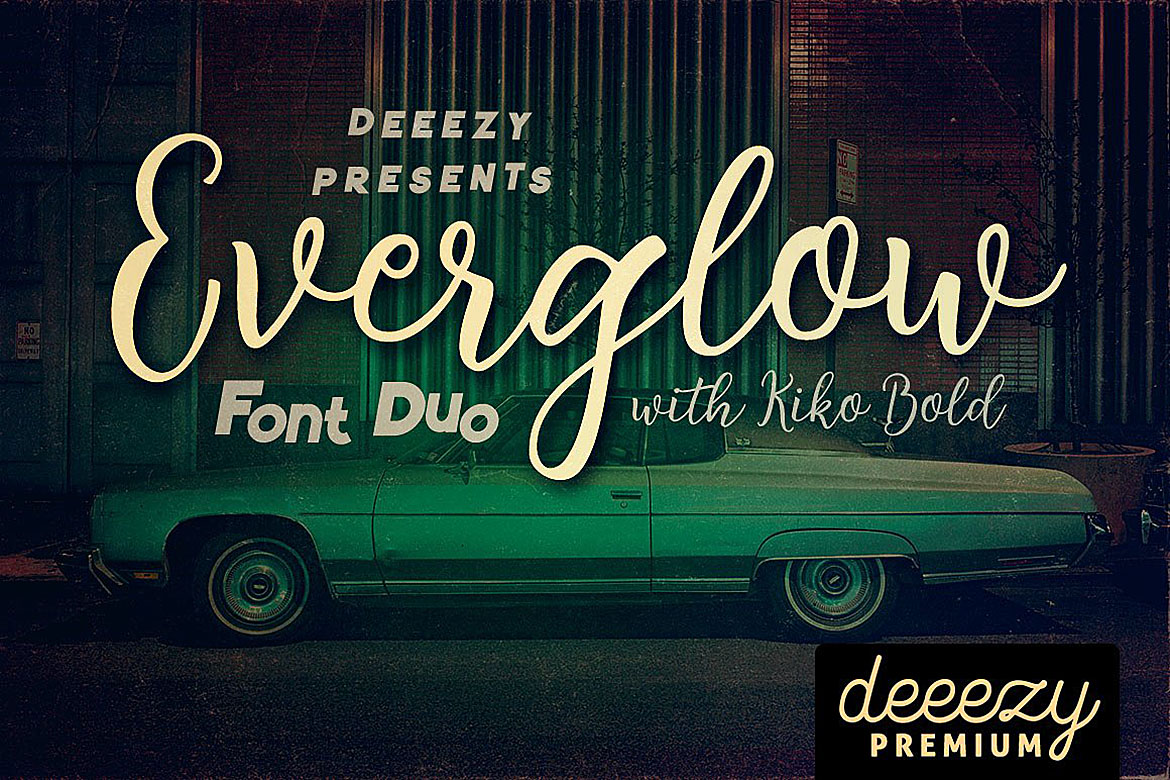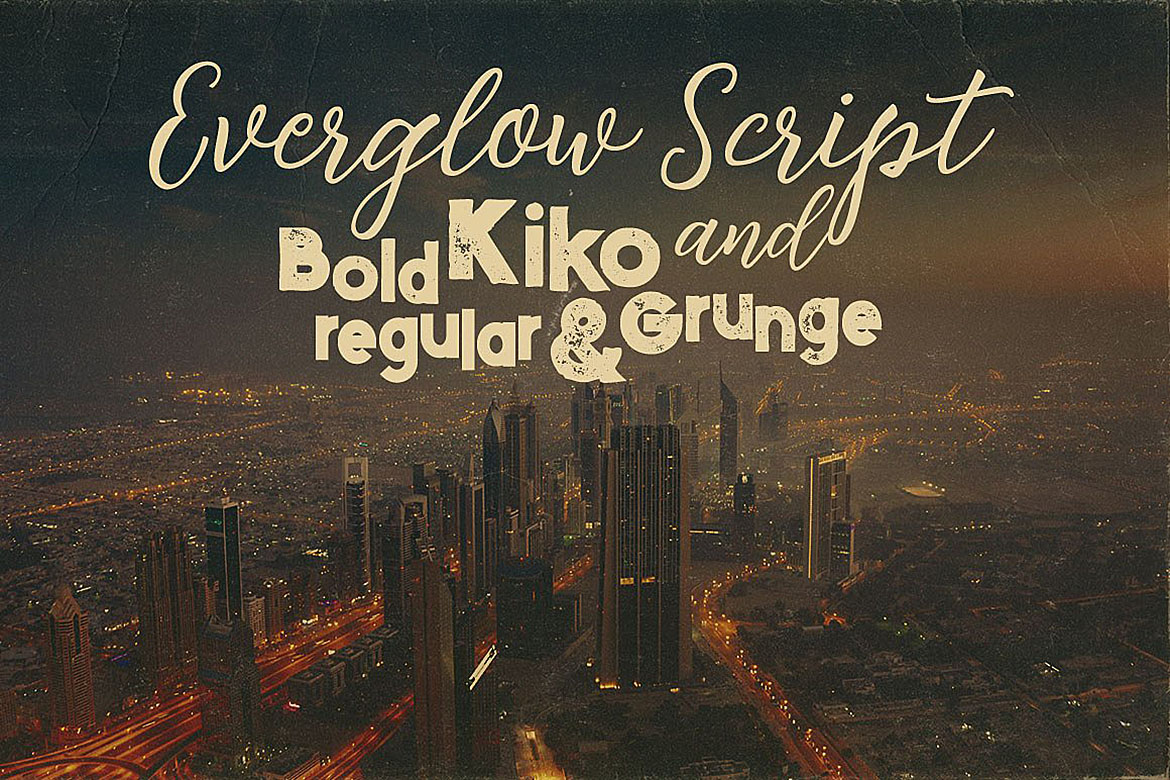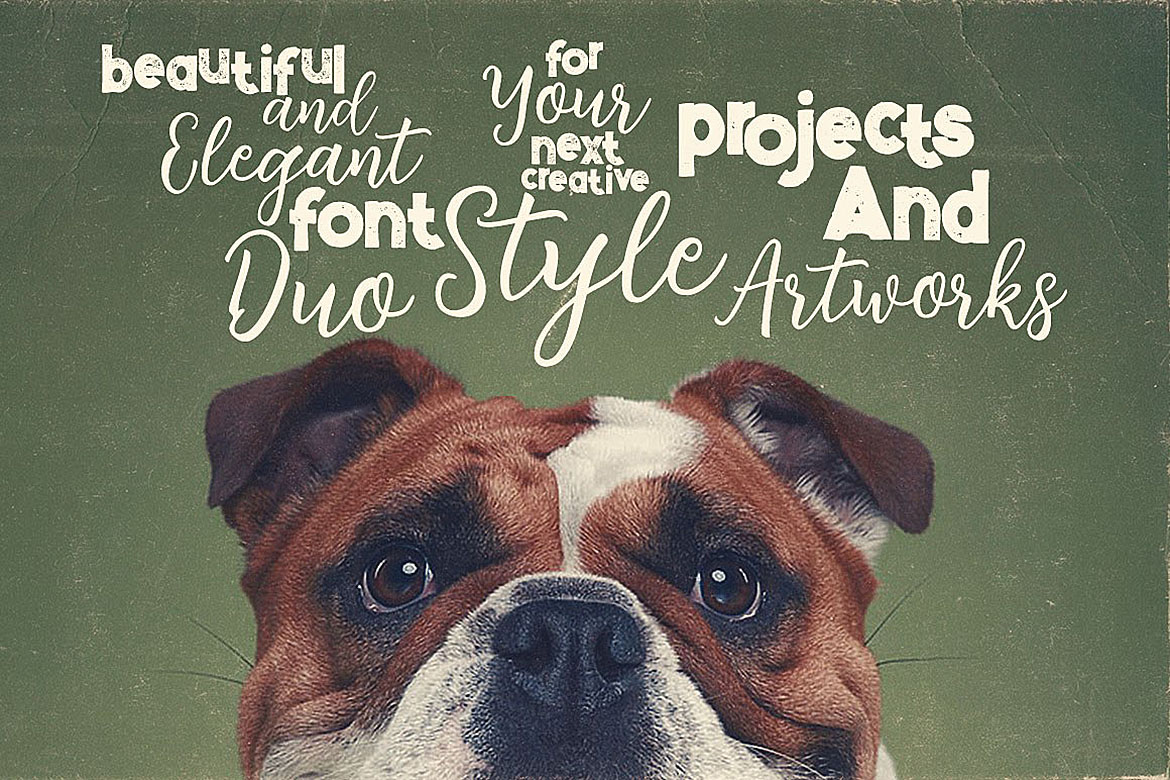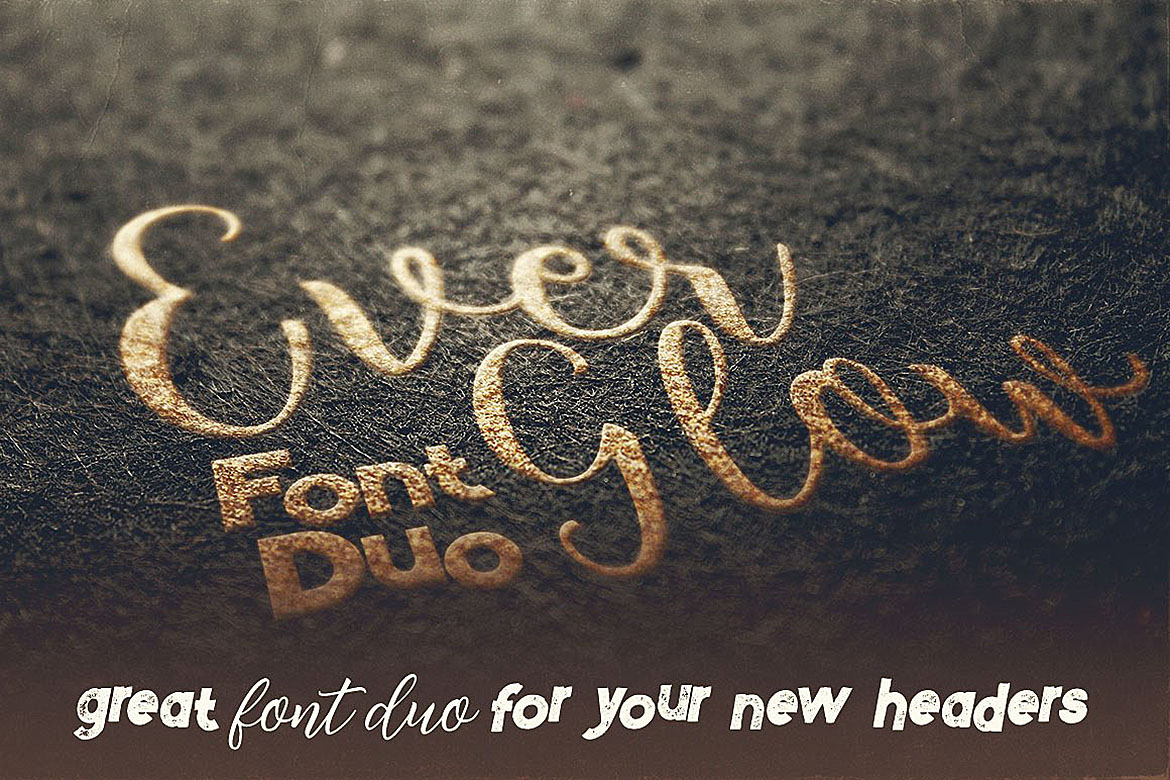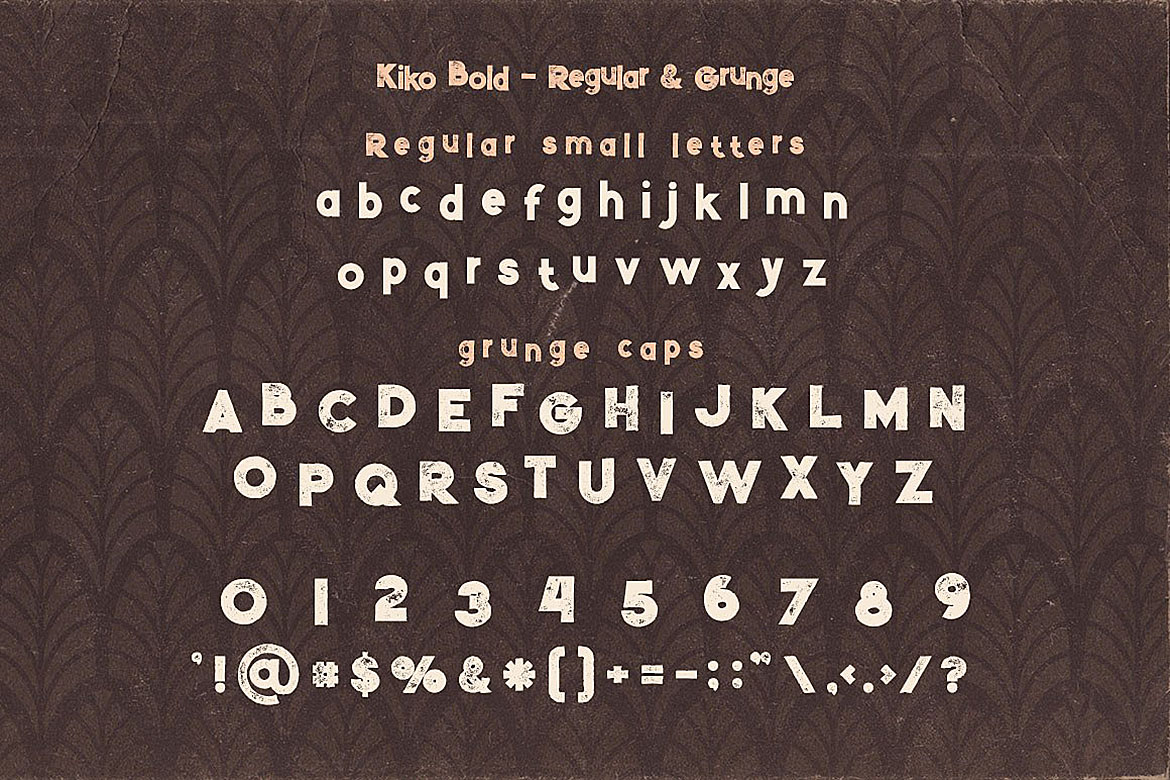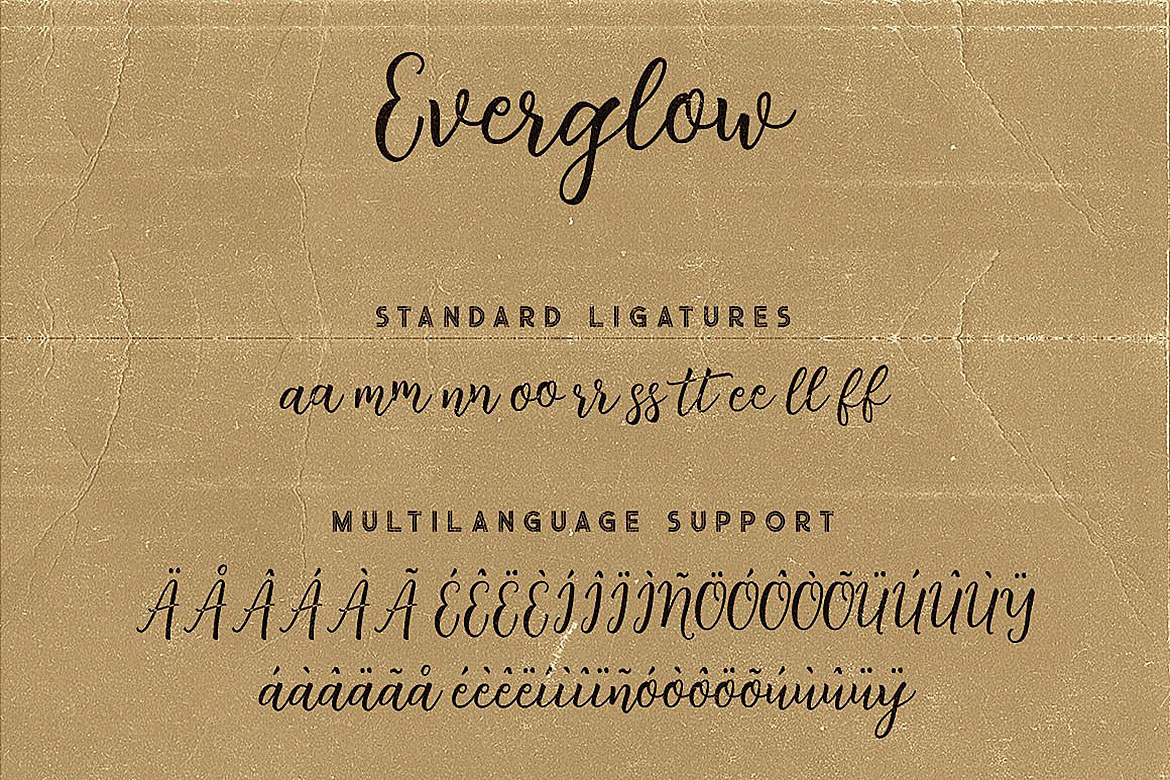
Cool and funny style font duo for your new projects.
First font is handdrawn & modern brush style script font with multi language support and lot of stylistic alternates.
Second font is bold sans serif display font with regular & grunge version (without multi language support).